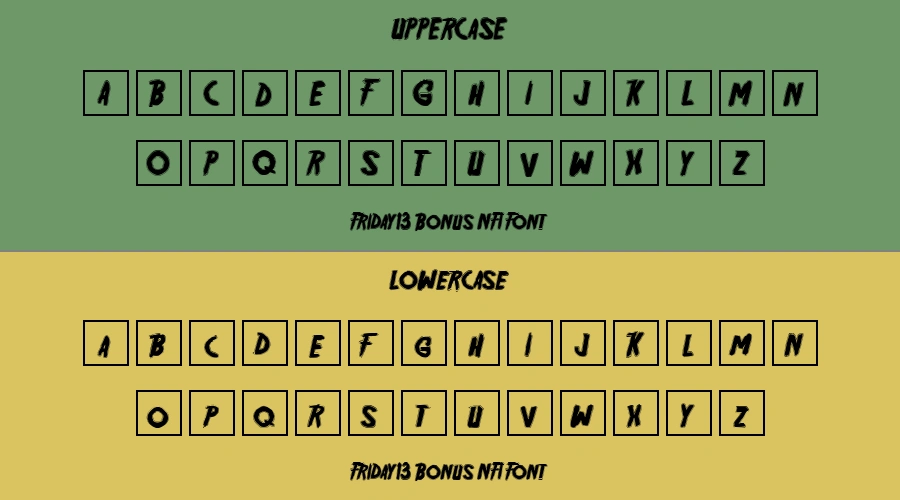
About Friday13 Bonus NFI Font
Friday13 Bonus NFI Font embodies typographic excellence through its masterful combination of sharp terminals and longevity. Created for medical texts, this typeface delivers exceptional memorability and cultural resonance across all applications. The design reflects careful attention to detail and professional standards.
Advanced capabilities include distinctive calligraphic influence and versatile tabular figures, giving designers creative control. When used in display applications, Friday13 Bonus NFI Font exhibits remarkable microfilm readability. The harmonious balance between descender depth and cultural relevance sets this typeface apart.